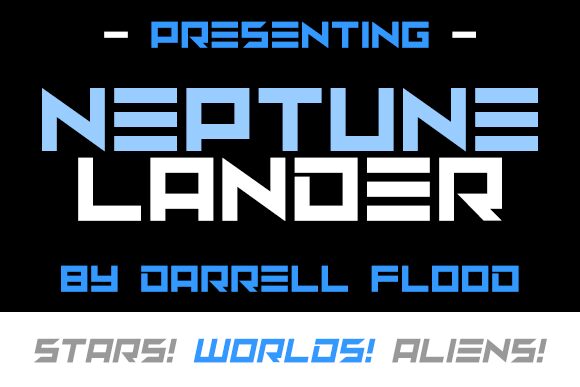
Neptune Lander Italic
Neptune Lander is a striking display font that exudes a distinct futuristic flair. Designed by Darrell Flood, this expanded typeface boasts an unparalleled aesthetic, with its sleek, angular letterforms and captivating italic style. The font's expansive width lends it an air of grandeur, making it an ideal choice for bold headings, impactful logos, and dynamic branding initiatives. Its futuristic sensibility seamlessly complements sci-fi-inspired projects, space-themed designs, and any creative endeavors seeking to evoke a sense of technological advancement and modern elegance.
Versatile and eye-catching, Neptune Lander offers designers a versatile tool to elevate their work and captivate their audience. Its unique personality and bold presence make it a standout choice for a wide range of applications, from digital interfaces to large-scale print materials.